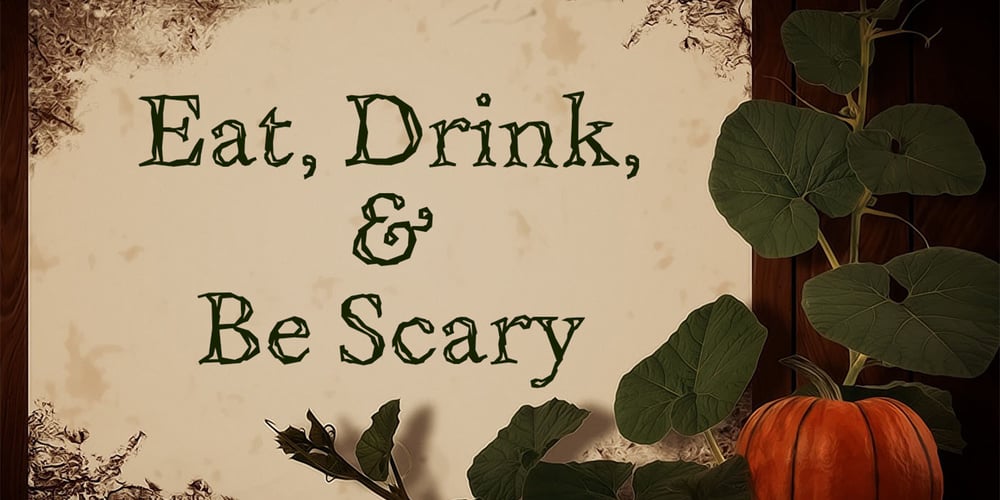
ITC Eastwood
ITC Eastwood font
ITC Eastwood Font Family was designed by Martin Archer and published by ITC. ITC Eastwood contains 1 styles and family package options. ITC Eastwood is the work of British designer Martin Archer and is named for Clint Eastwood. Archer was looking for a plain oldstyle typeface with open lower case forms and used Stempel Garamond as his starting point, although the result ended up well beyond its origins. In small point sizes the typeface looks interestingly rough while at display sizes it looks like a 16th century French typeface and its unique details come forward.